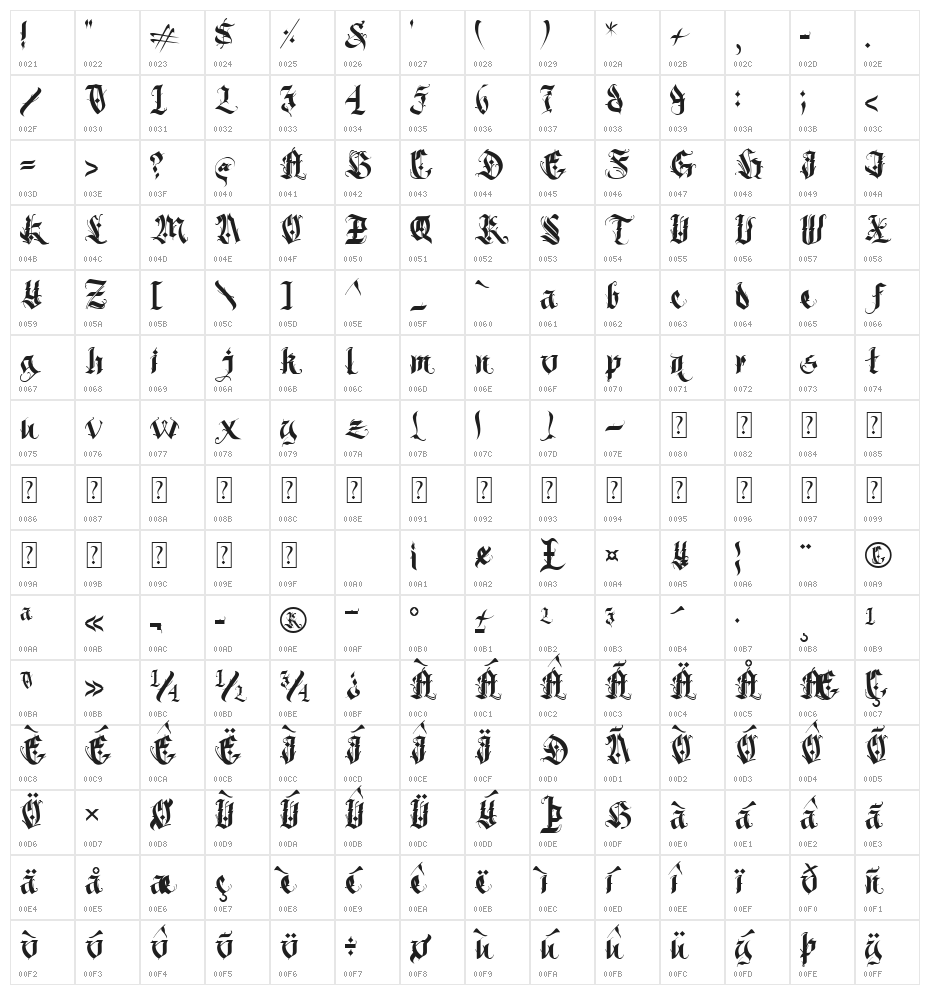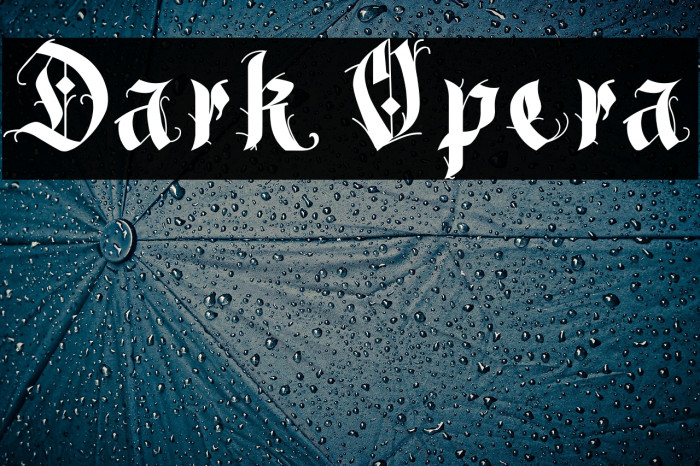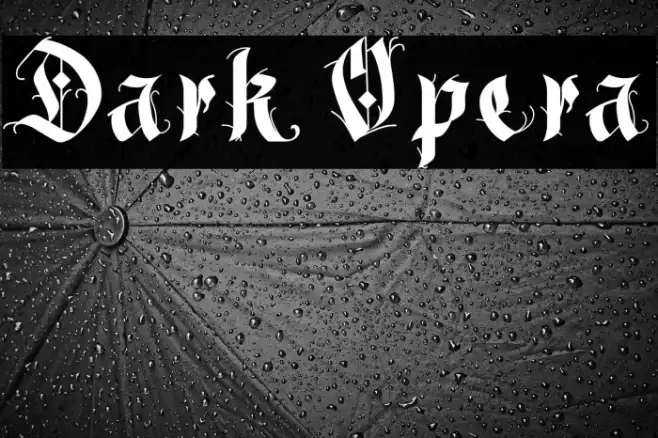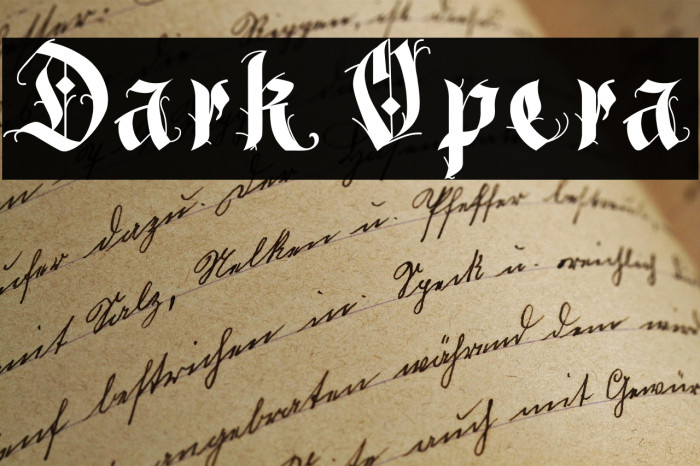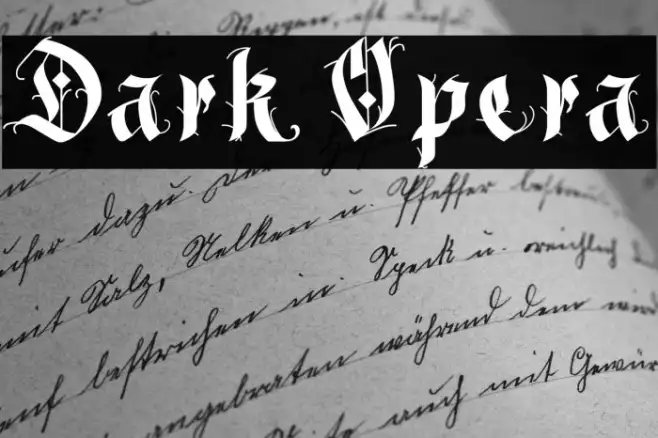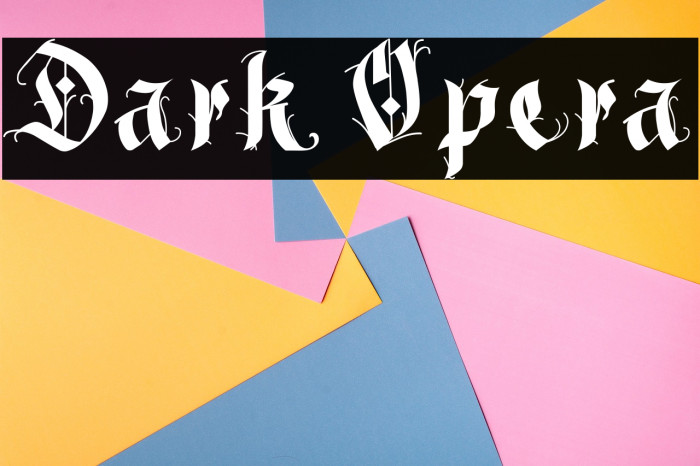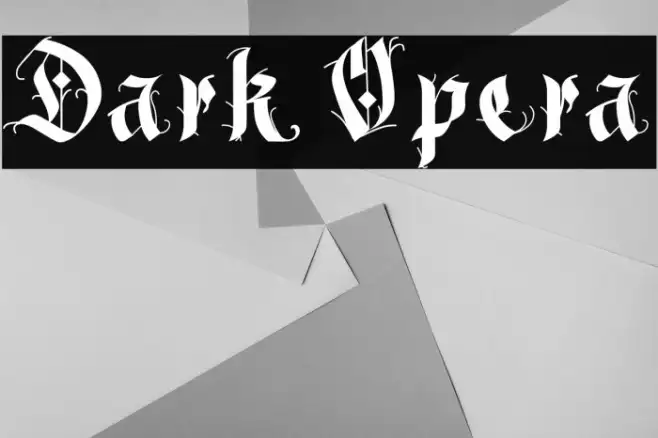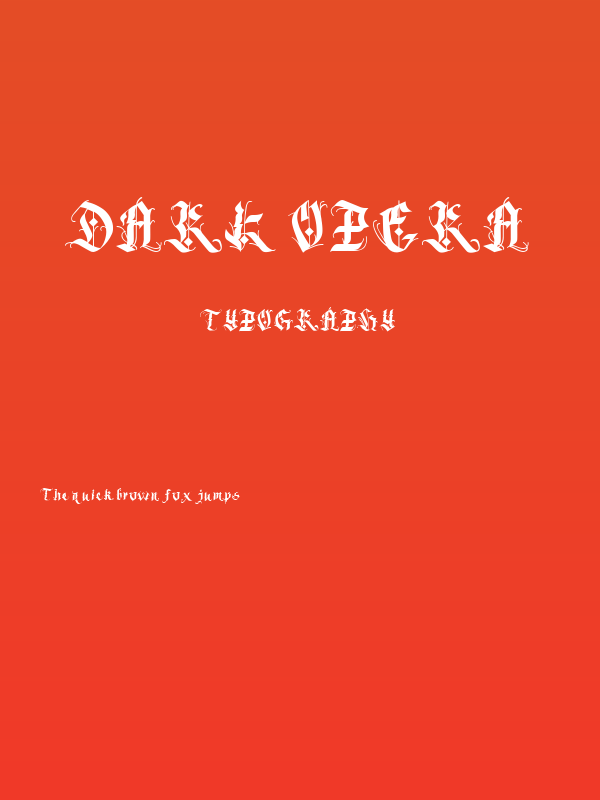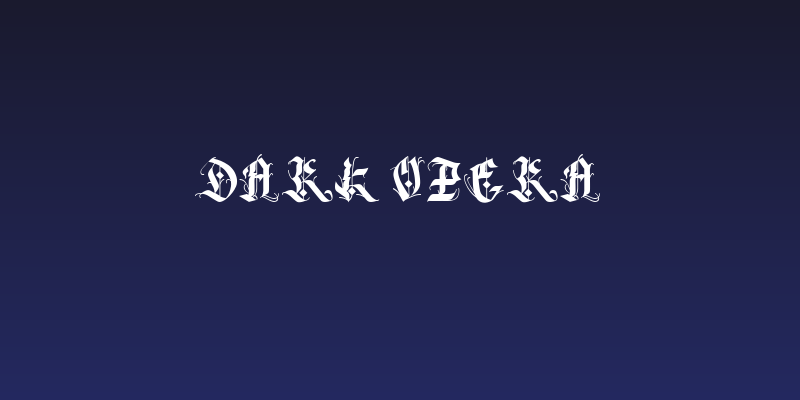
Dark Opera Font
Dark Opera Description
This font exudes a dramatic and gothic flair, characterized by its intricate and ornate letterforms. Each character is crafted with sharp, angular strokes and elaborate flourishes, reminiscent of medieval calligraphy. The uppercase letters are particularly striking, with bold, commanding presence, while the lowercase letters maintain a consistent style, offering a harmonious balance. The numerals and special characters are equally detailed, ensuring a cohesive look across all text elements. This font is ideal for projects that require a touch of elegance and historical depth.
| Use Case | Headlines, Logos, Decorative text |
| Proposed Projects | Ideal for book covers, posters, branding for luxury or historical-themed products, and decorative invitations. |